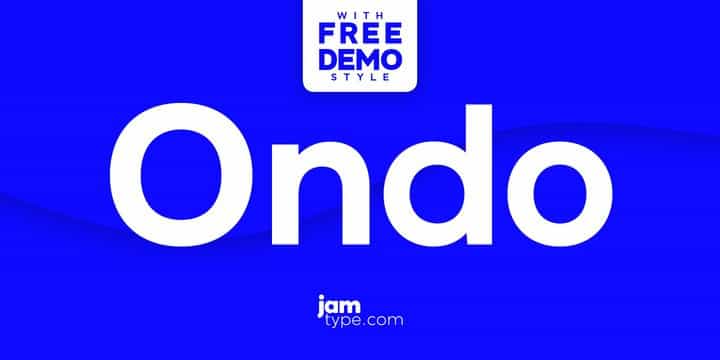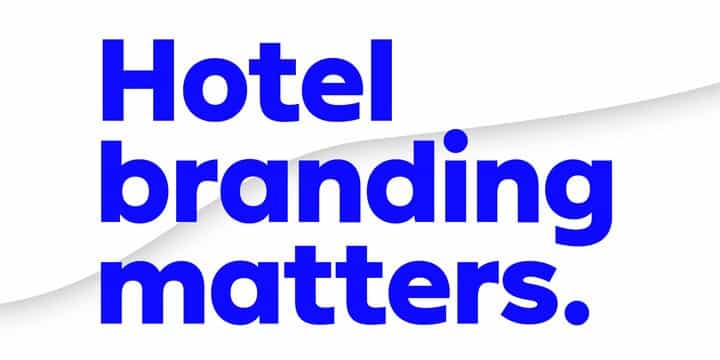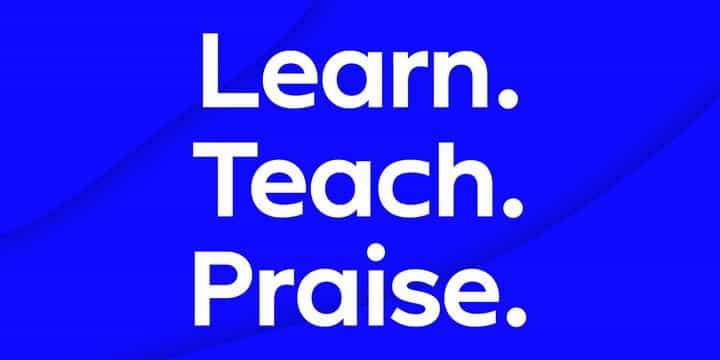
Ondo Sans is a low contrast geometric sans serif typeface with large open counters thus making the typeface to appear somewhat bold and modern. This feature makes Ondo fun yet realistic, and can be applied for large sections of the text, as well as headlines.